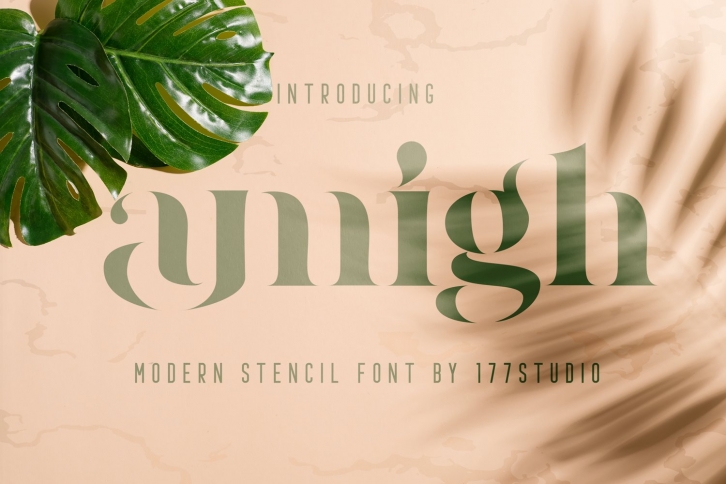
Amigh - Modern Serif Font Download
Amigh is a trendy and unique font with an authentic style. It was designed by 177Studio and it's a great choice for creative people who need such a font. It was released on September 7, 2020 and the file size is 21.72 MB. Amigh will add an organic vibe to any design idea!